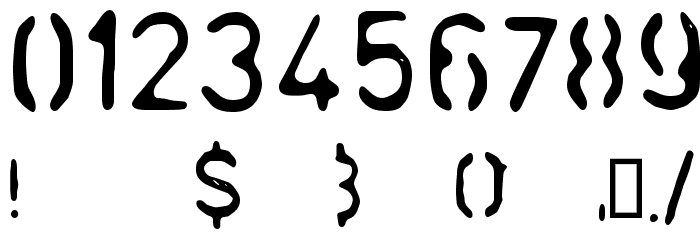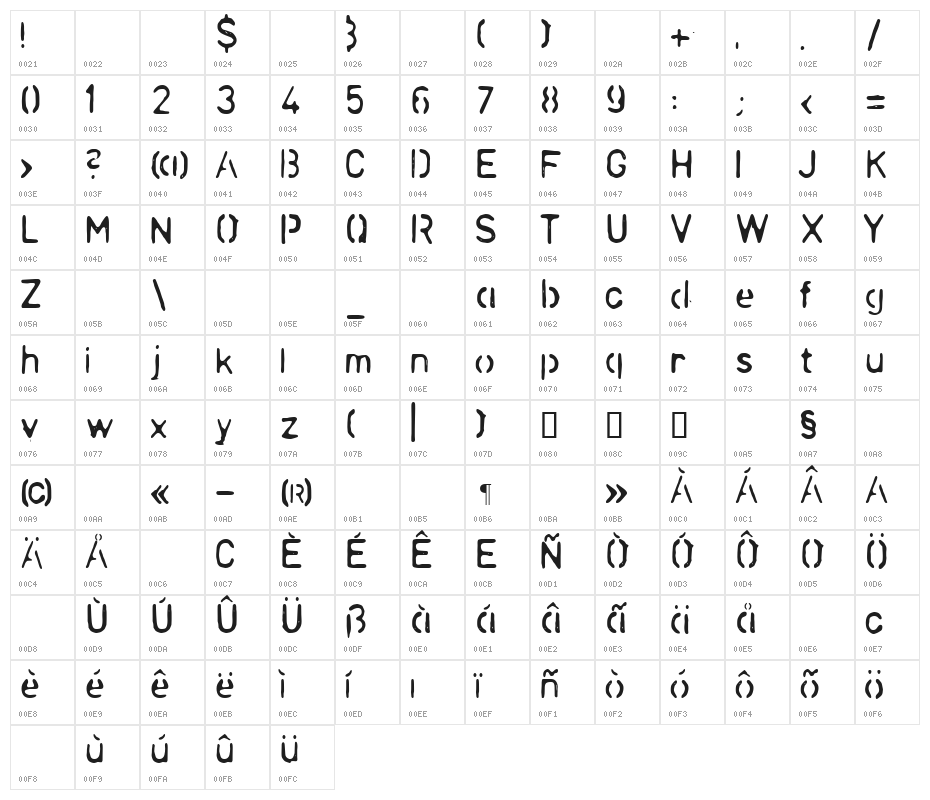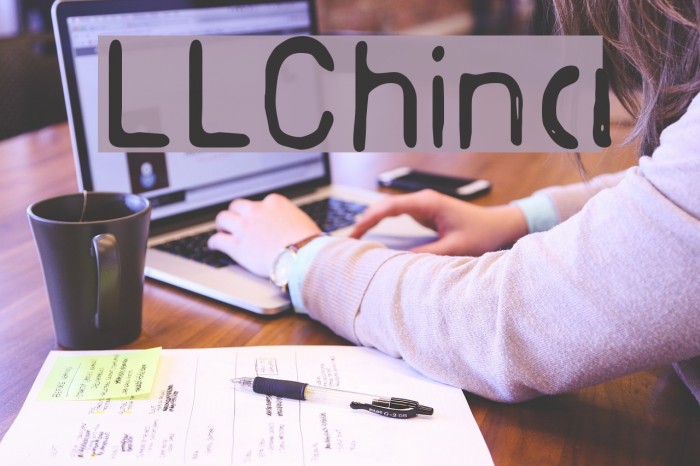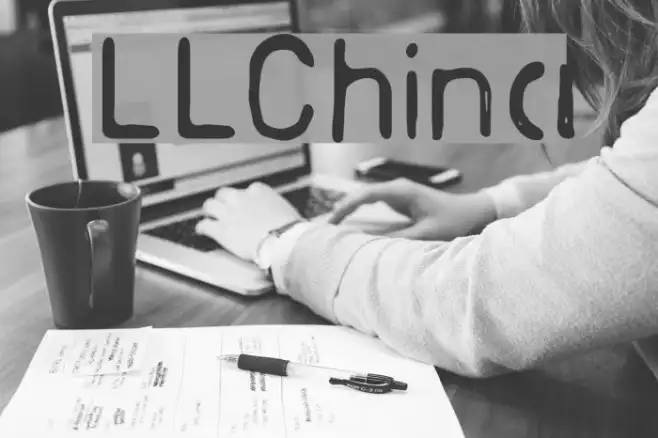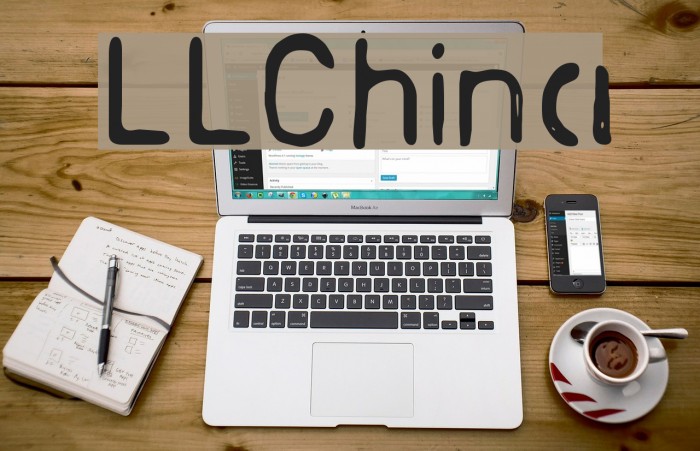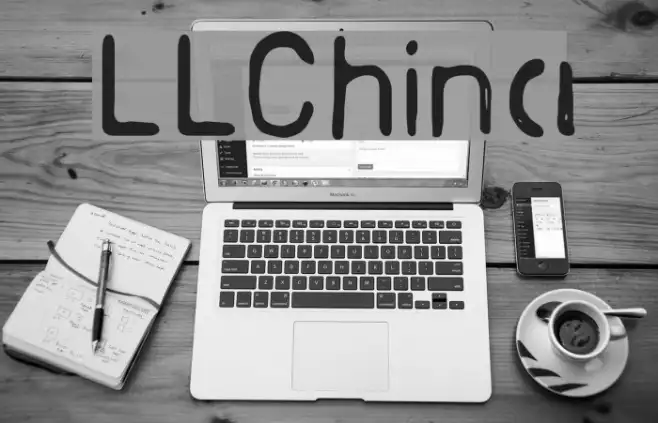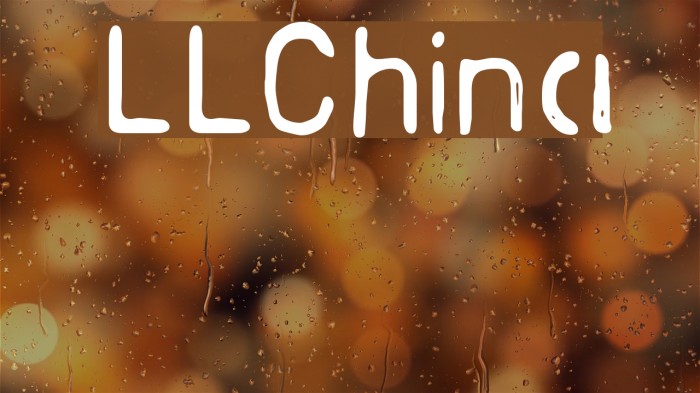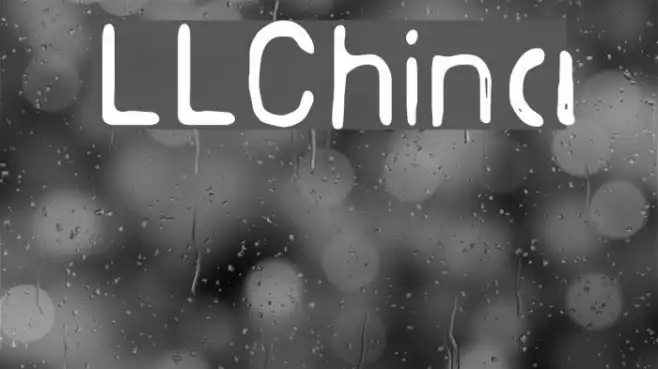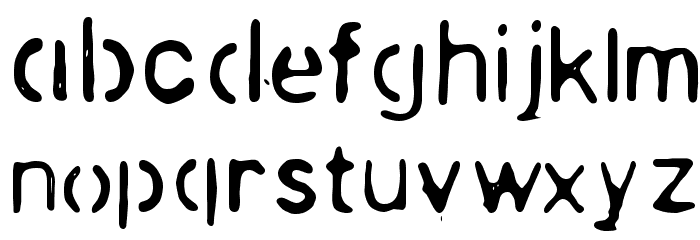
LLChina Font
LLChina Description
This font features a unique and artistic design with a hand-drawn appearance. The characters are bold and have an irregular, organic shape that gives them a playful and creative feel. The strokes are uneven, with varying thicknesses that add to the font's distinctive style. The uppercase and lowercase letters maintain a consistent style, while the numbers and special characters complement the overall aesthetic. This font's quirky and unconventional look makes it stand out, perfect for projects that require a touch of individuality and creativity.
| Overall Style | Artistic, Playful |
| Proposed Projects | Ideal for creative projects such as posters, album covers, children's books, and artistic branding. |